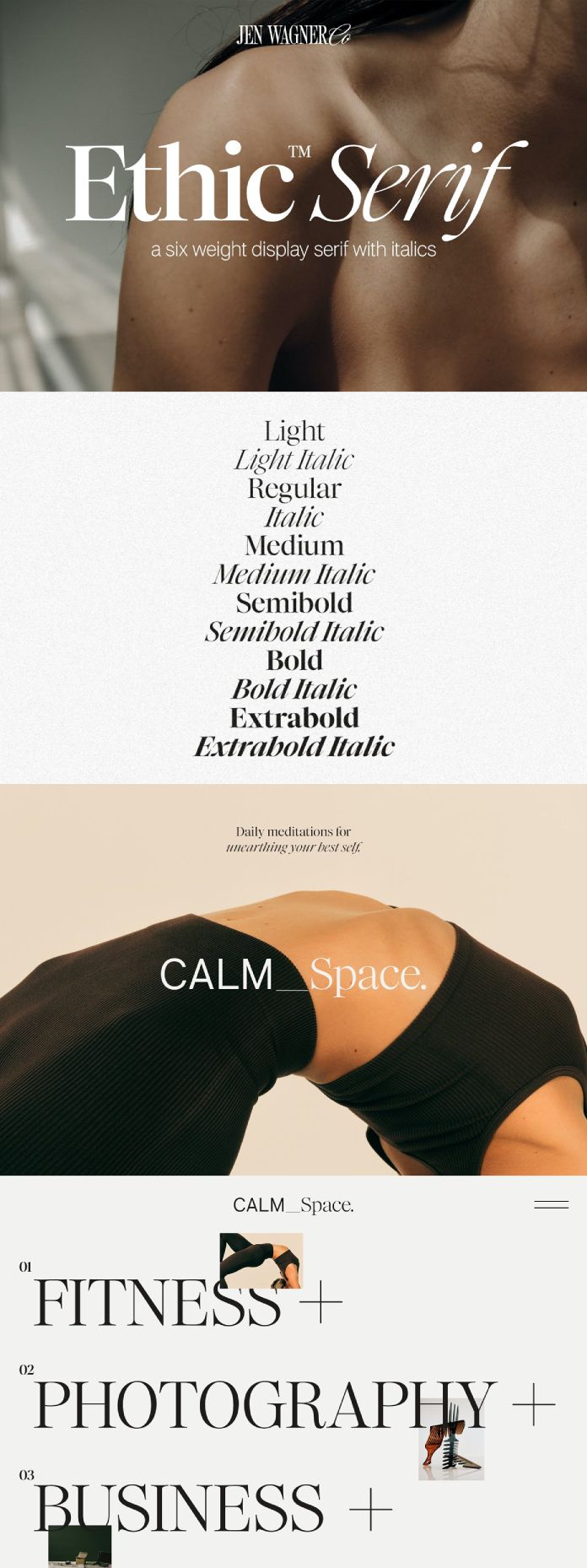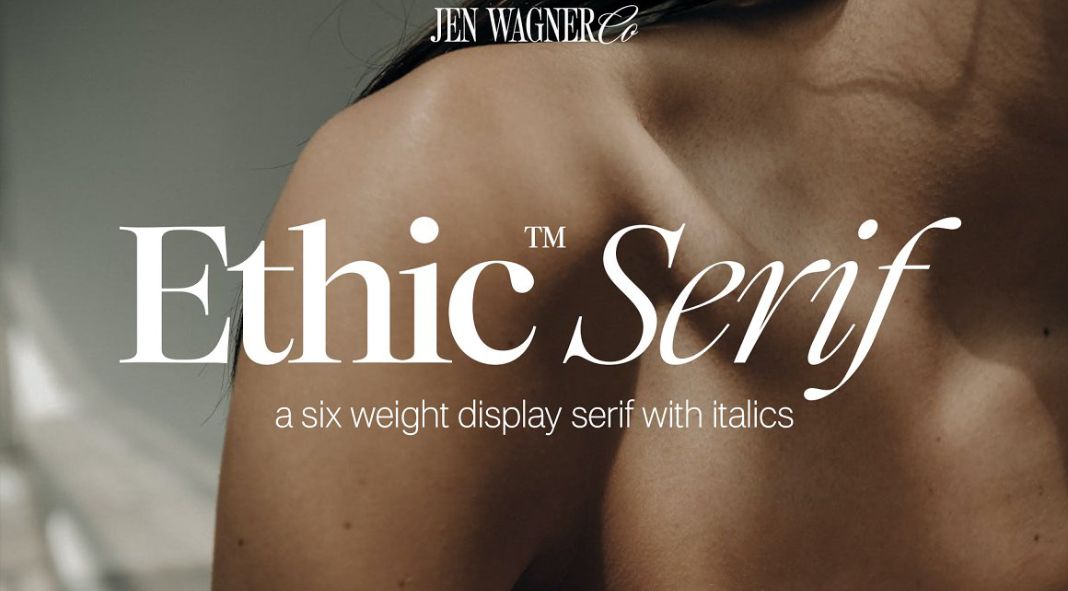
Ethic Serif is a masterfully crafted font family designed by the visionary Jen Wagner. Formerly known as Times Neutra, this stunning serif typeface is anything but ordinary—it craves the limelight, commanding attention with its timeless elegance and refined character.
Featuring six meticulously crafted weights, from the delicate Light to the commanding Extrabold, Ethic Serif offers a versatile palette for designers to play with. Each weight is accompanied by its italic counterpart, adding depth and dynamism to any typographic composition.
What sets Ethic Serif apart is its striking contrast, organic curves, and sharp italics. These elements come together harmoniously, creating a visual feast for the eyes and making Ethic Serif the ideal choice for large-scale headers, impactful text moments, or captivating quotes.
But Ethic Serif is more than just a pretty face—it’s a powerhouse of functionality. With comprehensive support for numbers, punctuation, and multiple languages, it ensures seamless communication across diverse platforms and audiences.
For those in pursuit of luxury branding or type-focused projects, Ethic Serif emerges as a go-to solution. Its inherent sophistication and versatility make it a natural fit for any design endeavor aimed at making a statement.
And here’s a pro tip: Pairing Ethic Serif with Neue Swiss is a match made in typographic heaven. The classic charm of Ethic Serif complements the modern sleekness of Neue Swiss, resulting in a visual synergy that elevates any project to new heights of sophistication.
Whether you’re crafting a brand identity, designing a magazine spread, or curating an immersive web experience, Ethic Serif is your secret weapon for leaving a lasting impression. With its undeniable charisma and timeless appeal, Ethic Serif asserts its dominance as the ultimate center of attention in the world of typography.